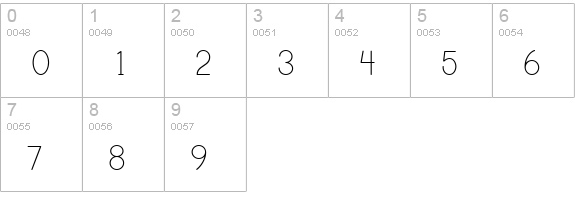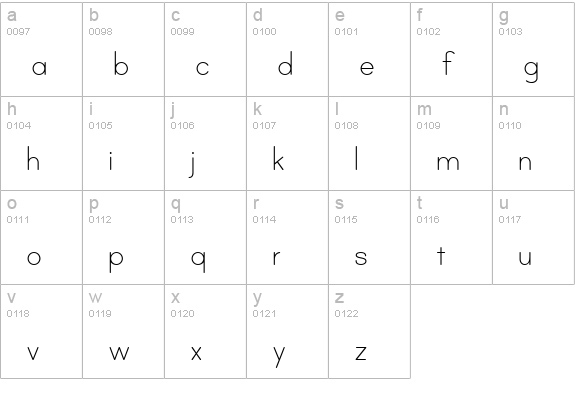
Print Clearly Font Details
Print Clearly is a versatile and legible font that effortlessly combines simplicity with functionality. Designed with clarity and readability in mind, this font is perfect for a wide range of projects, from print materials to digital designs. Its clean lines and balanced proportions make it easy on the eyes, ensuring that your message will be conveyed with utmost clarity and professionalism. With its generous letter spacing and open counters, Print Clearly maintains excellent legibility even at smaller sizes, making it ideal for body text as well as headlines. Whether you're designing a brochure, a website, or any other project that requires clear and crisp typography, Print Clearly will undoubtedly meet your needs. What's even better is that Print Clearly is available for free download at FontsMarket.com. Yes, you heard it right – this high-quality font can be yours without any cost. FontsMarket.com offers a vast collection of fonts, and Print Clearly is one of the jewels in their crown. With just a few clicks, you can easily download and start using this font in your projects, adding a touch of professionalism and clarity to your designs. So why wait? Join the countless designers and creatives who have already discovered the beauty and functionality of Print Clearly. Download it now, completely free, at FontsMarket.com and elevate your typography game to a whole new level.